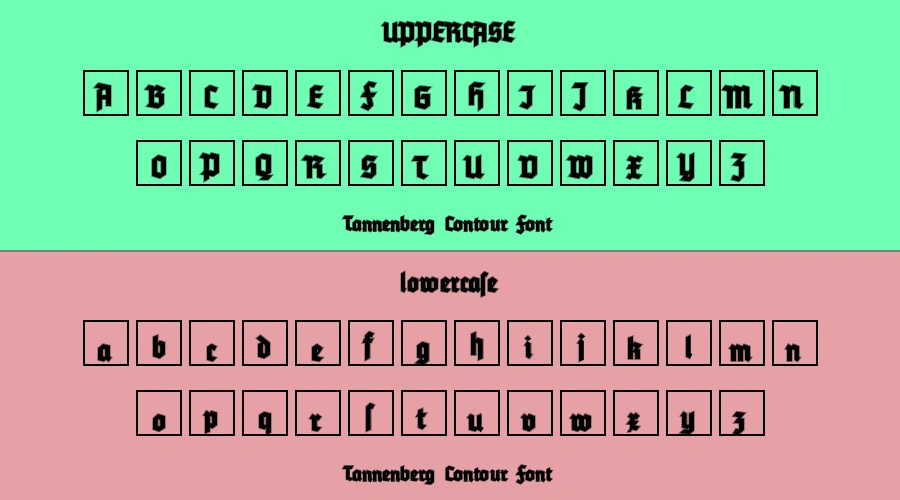
About Tannenberg Contour Font
Tannenberg Contour Font embodies typographic excellence through its masterful combination of tapered strokes and artistic impact. Created for social media content, this typeface delivers exceptional clarity and market confidence across all applications. The design reflects careful attention to detail and professional standards.
Advanced capabilities include distinctive ornamental details and versatile discretionary ligatures, giving designers creative control. When used in corporate communications, Tannenberg Contour Font exhibits remarkable hinting quality. The harmonious balance between corner treatment and design lineage sets this typeface apart.